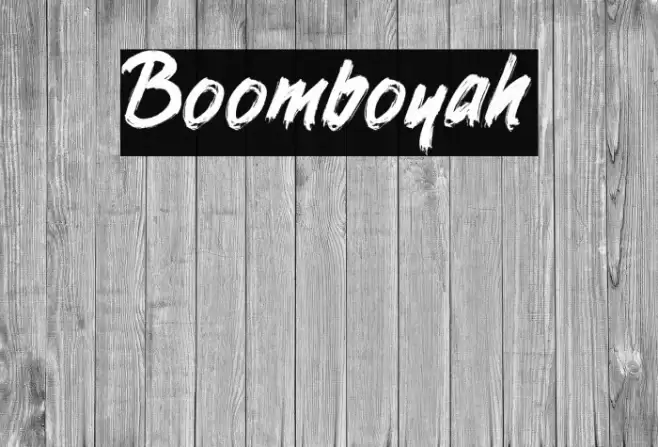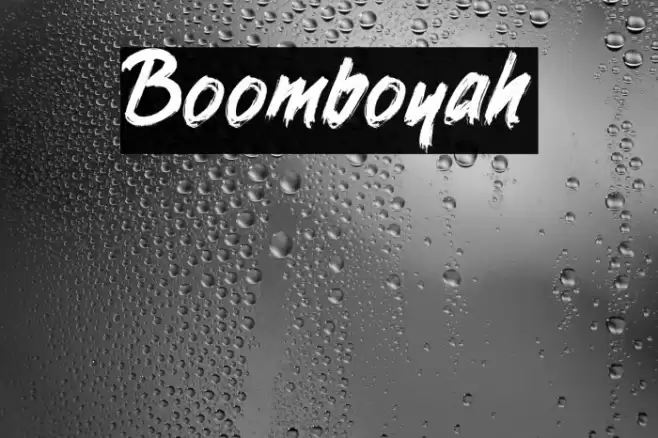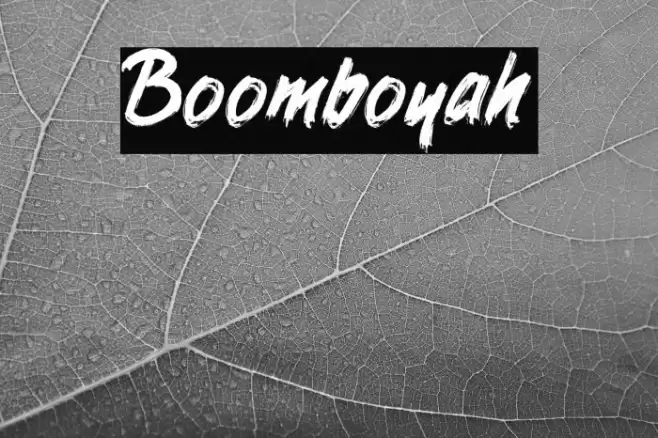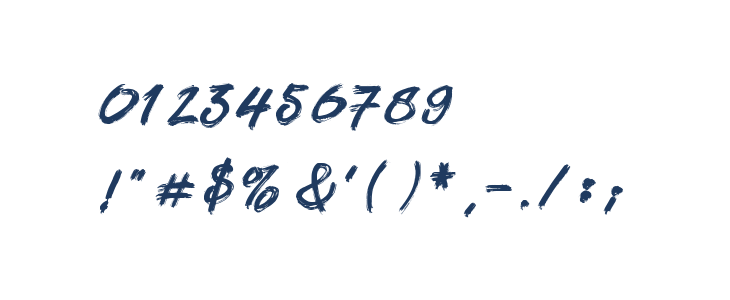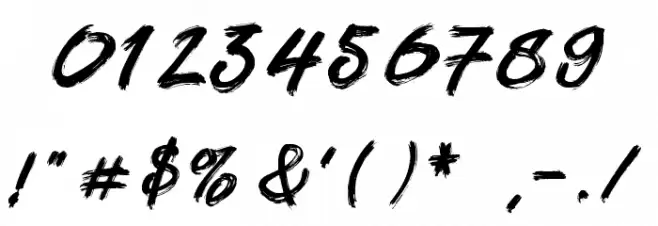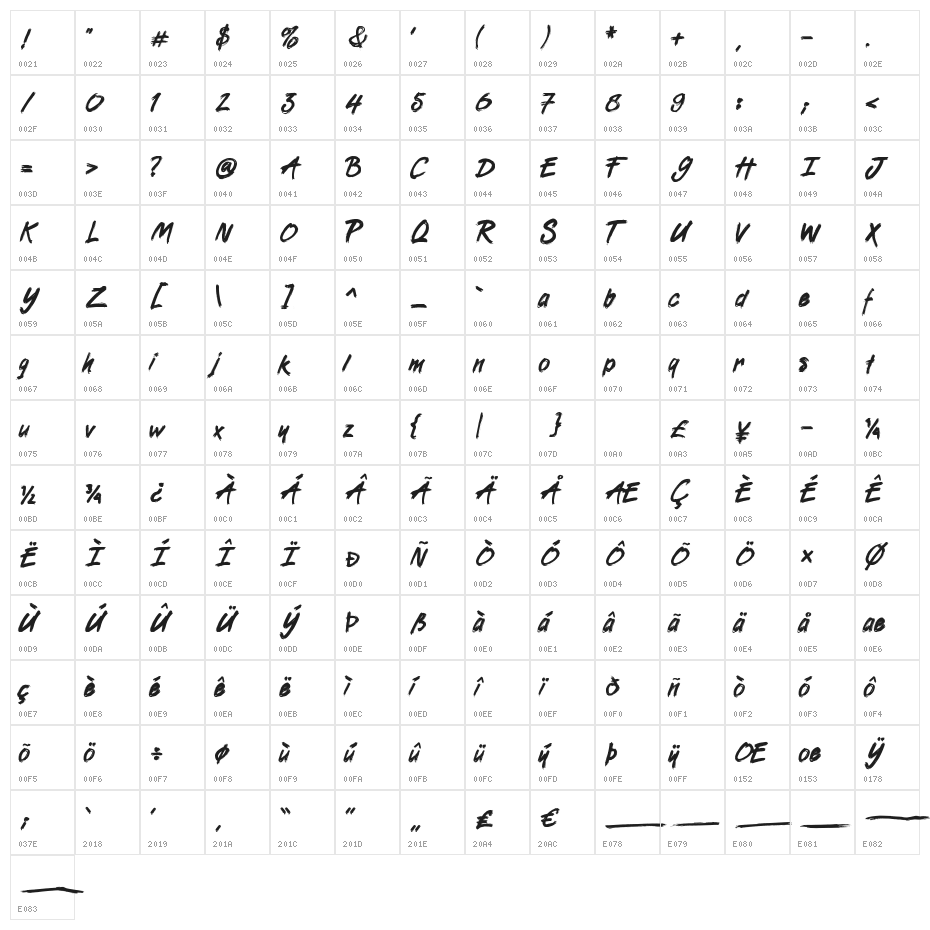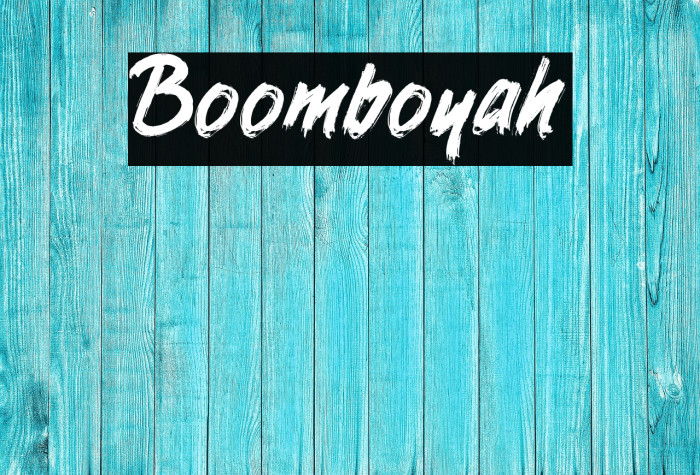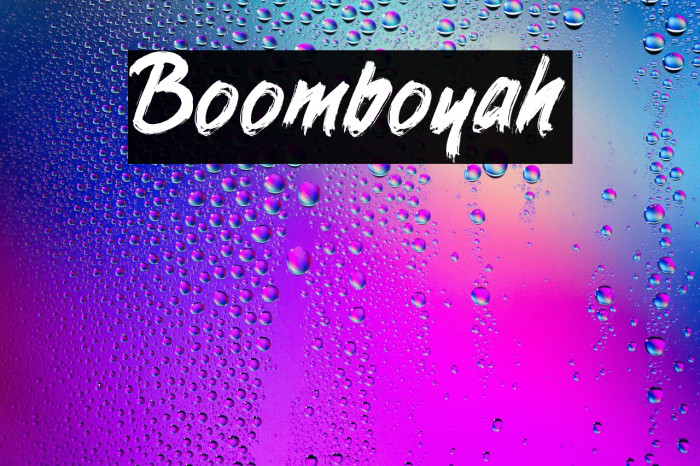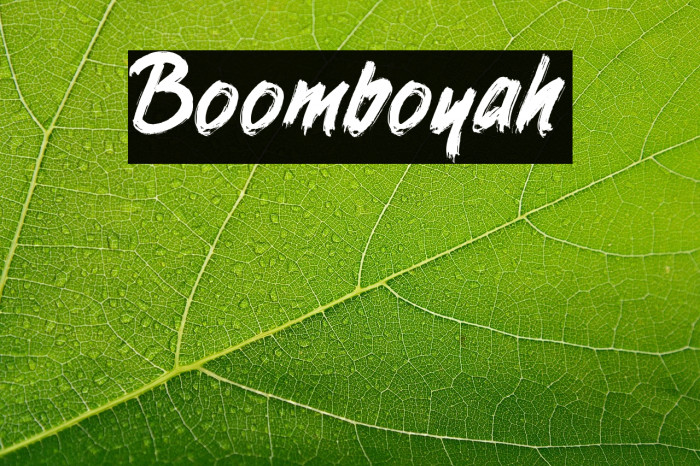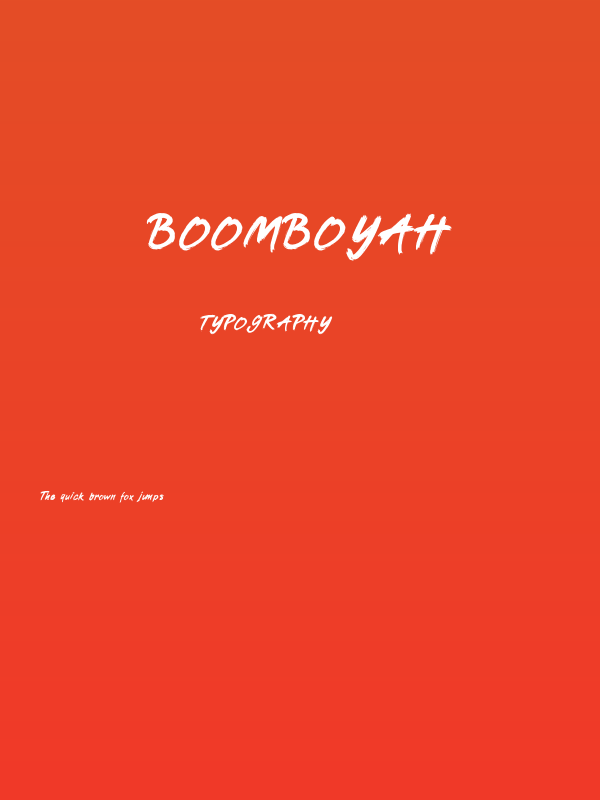
Boomboyah Font
Boomboyah Description
This font features a bold and dynamic brush script style, characterized by its energetic and expressive strokes. The letters have a hand-painted appearance, with varying thicknesses that add a sense of movement and vitality. The uppercase letters are particularly striking, with sharp angles and a slightly slanted orientation that enhances the font's dynamic feel. The lowercase letters maintain the same lively aesthetic, with smooth curves and a cohesive flow. Numbers and special characters are designed with the same brush-like texture, ensuring consistency throughout the font. This style is perfect for projects that require a bold and artistic touch.
A bold, dynamic brush script font with expressive strokes and a hand-painted look from Regular fonts.